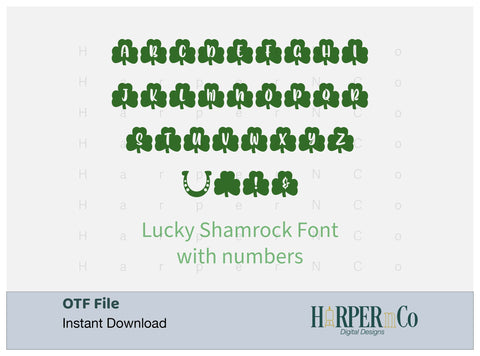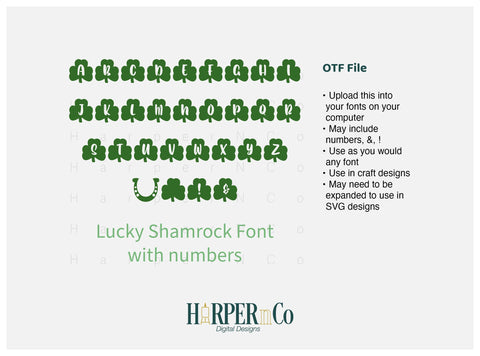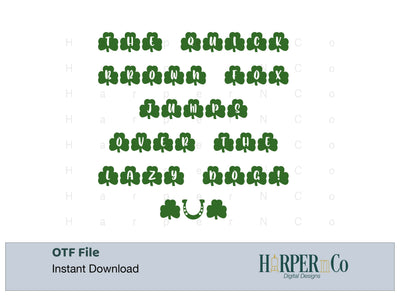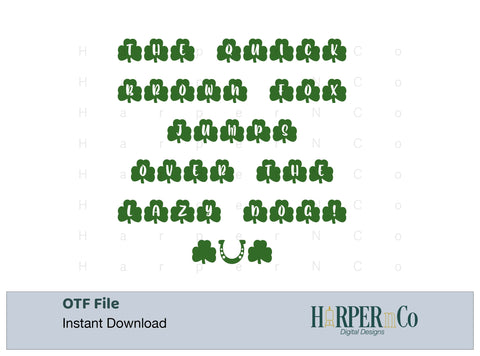
Lucky Shamrock Font, Dingbats
Bring a touch of Irish charm to your designs with the Lucky Shamrock Font! This festive font features letters and numbers nestled inside clover leaves, making it perfect for St. Patrick’s Day projects, greeting cards, party invitations, or any design needing a lucky, whimsical touch. Celebrate in style with this playful and unique typeface!